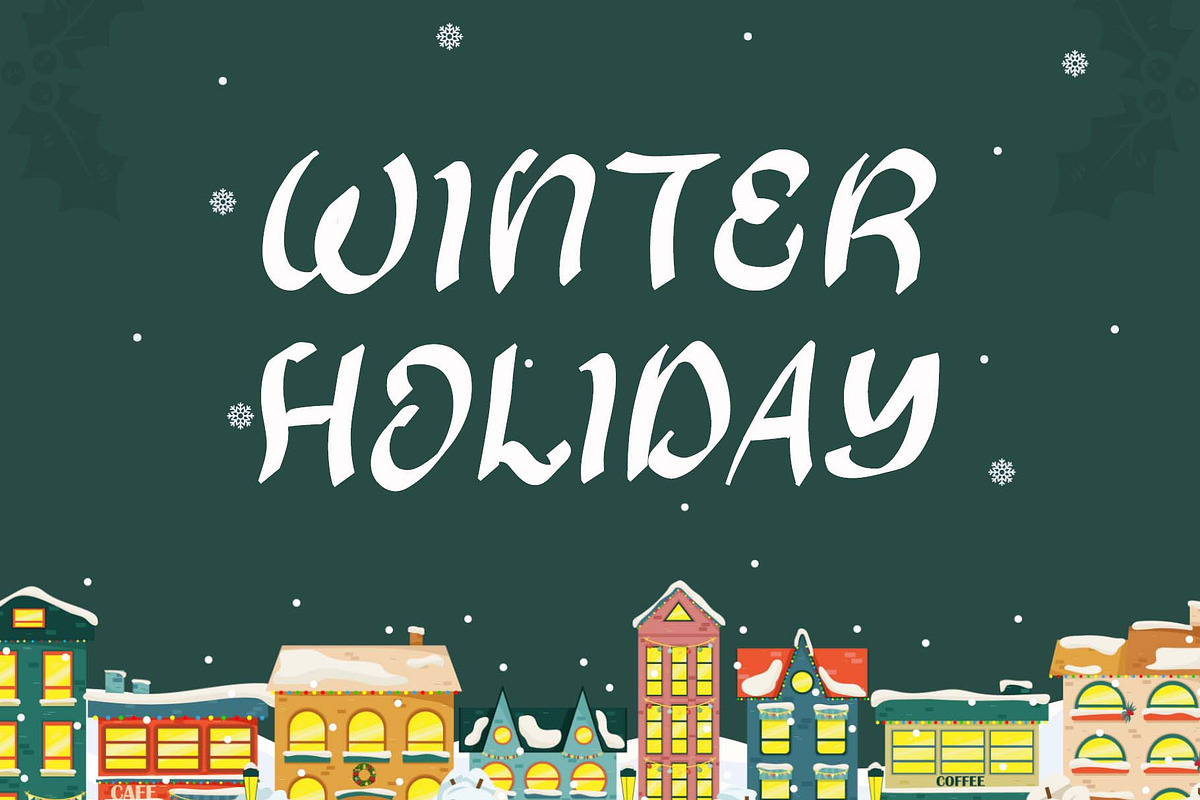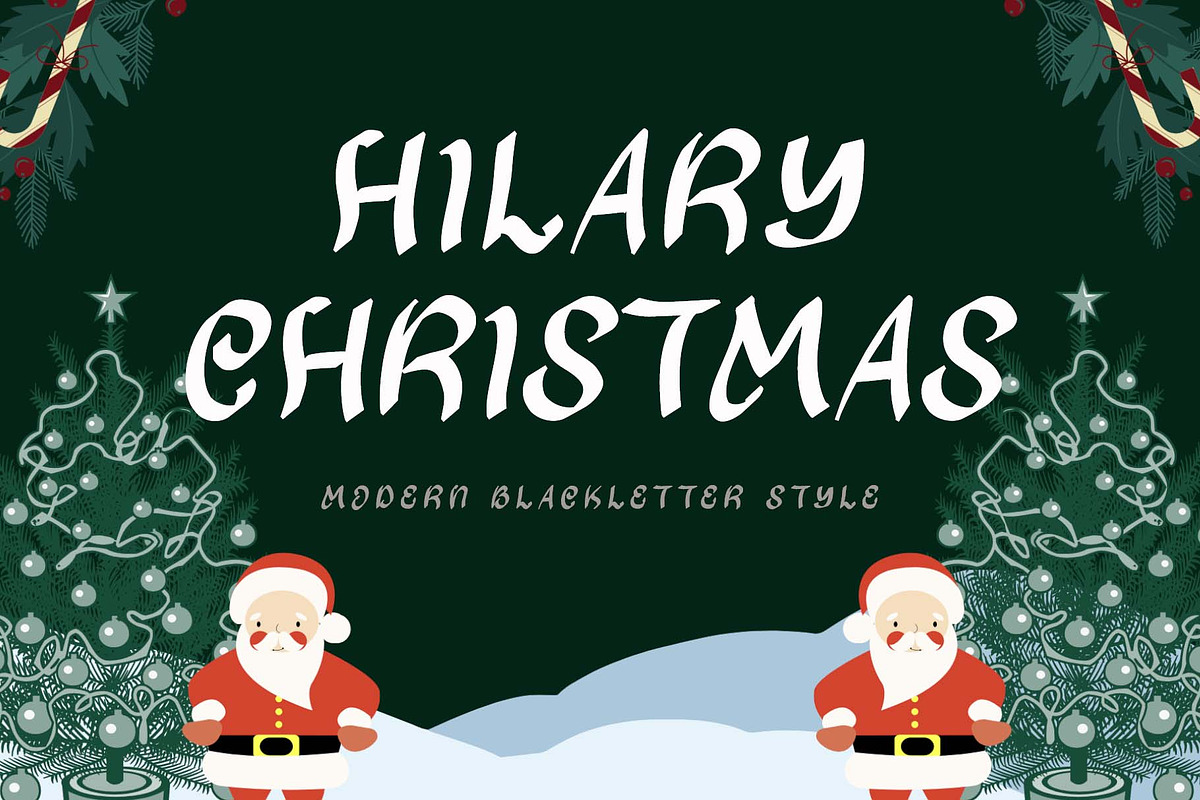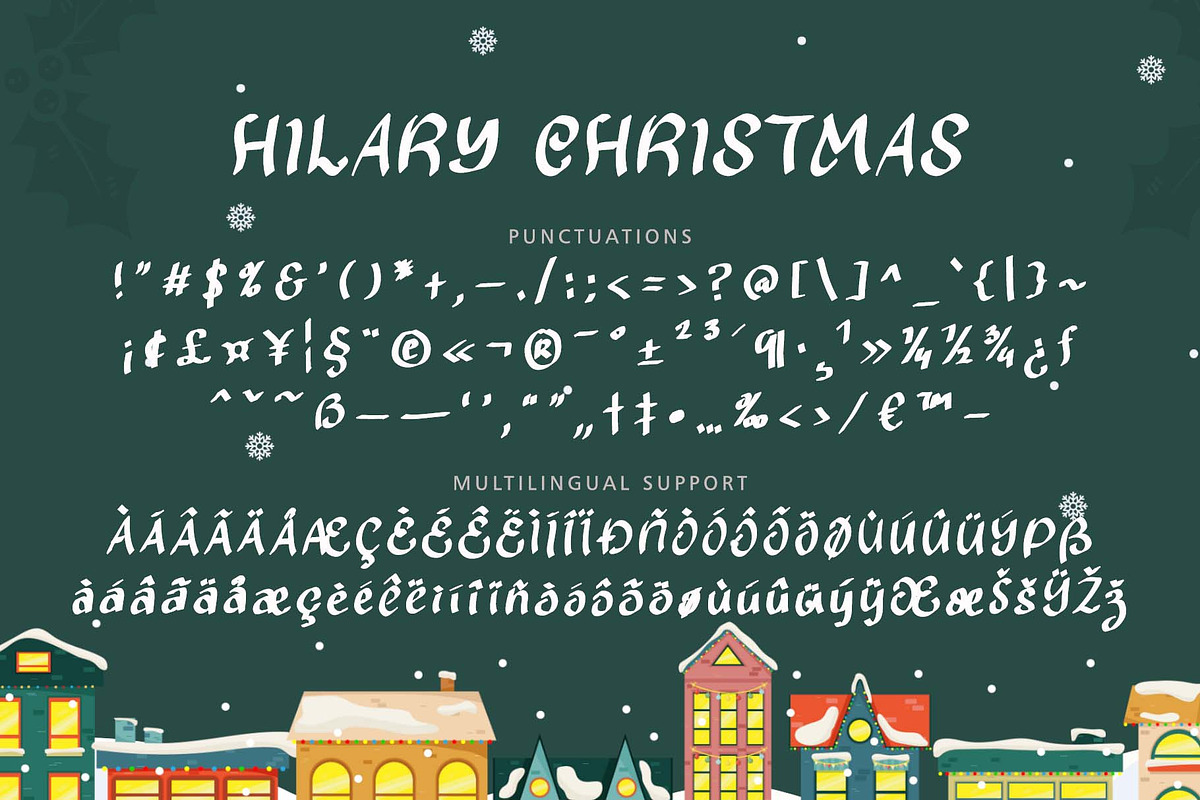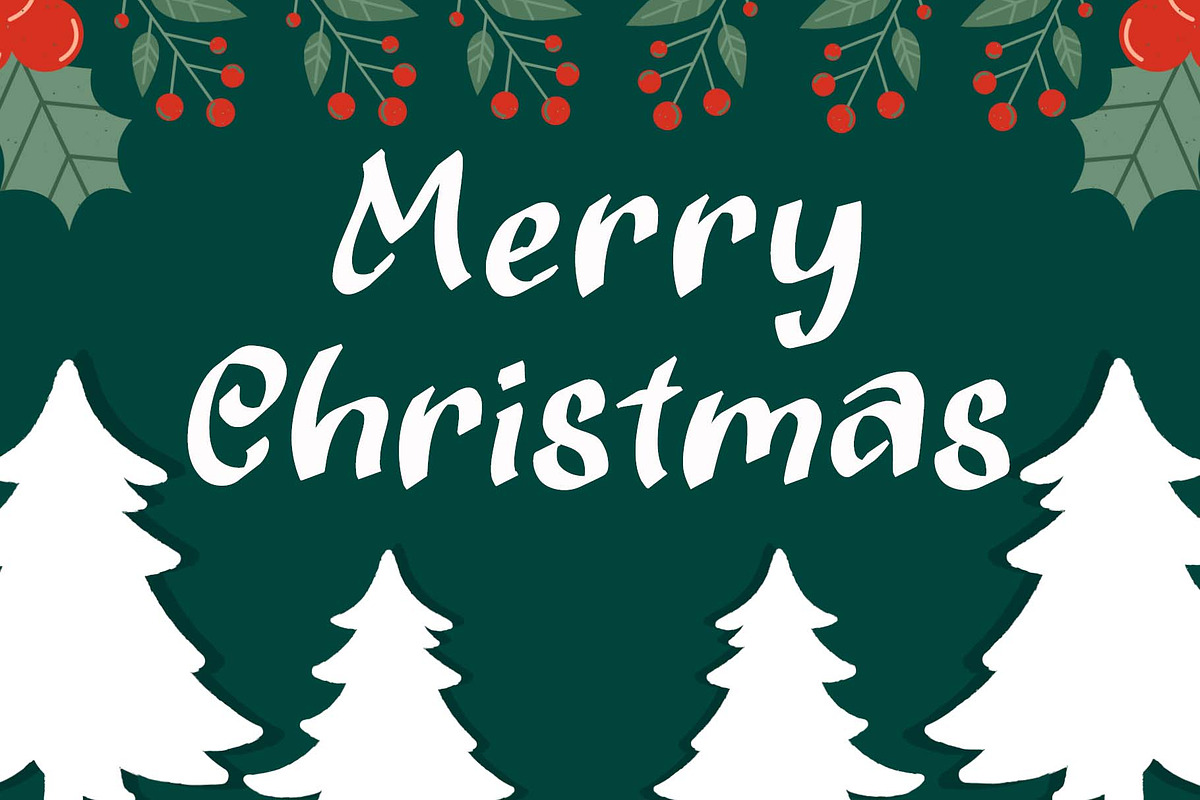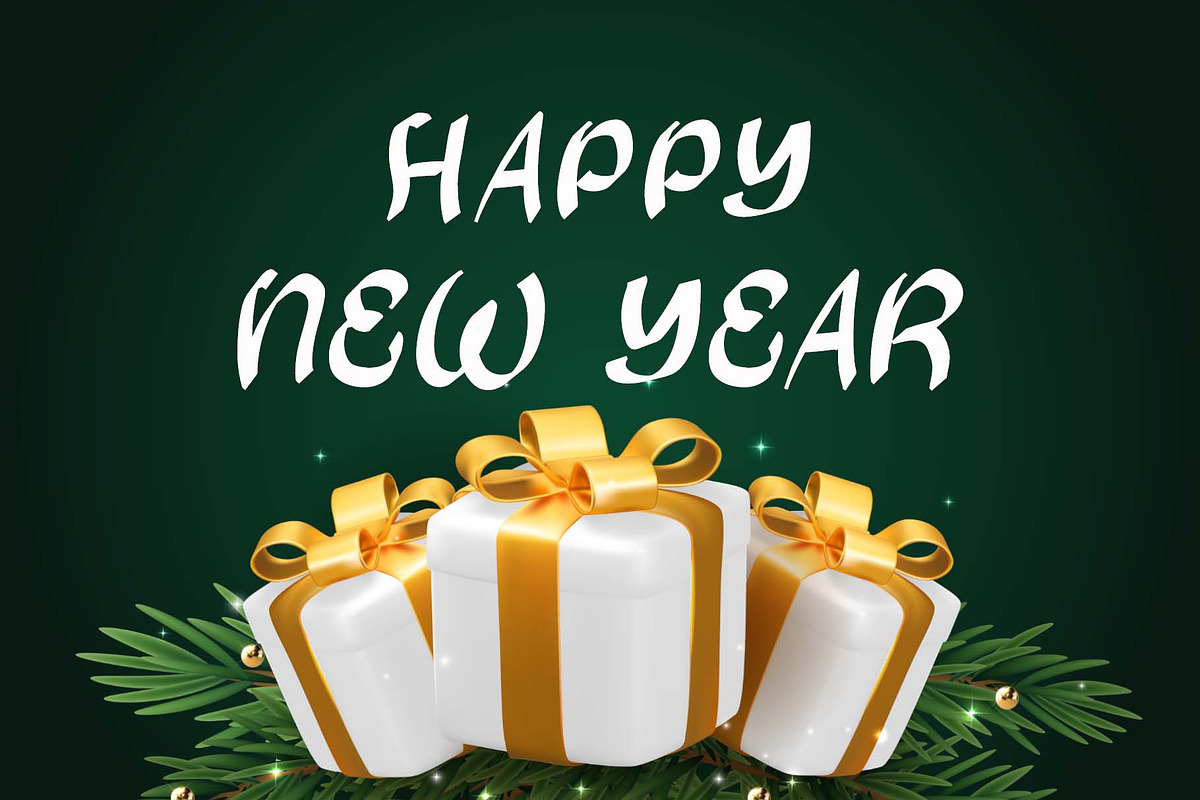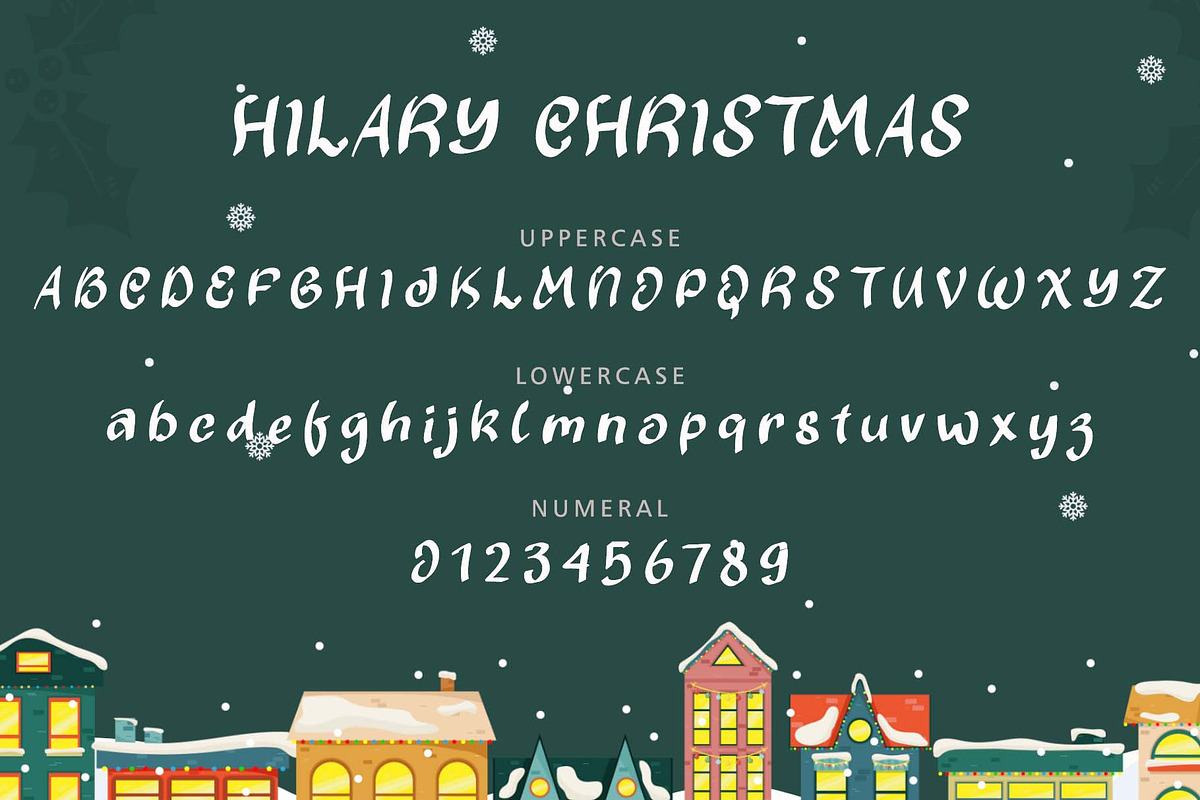
Hilary Christmas
"Hilary Christmas" is a unique and elegant blackletter font. It comes with capital letters, lowercase letters, numbers, punctuation, and multilingual support. It is perfect for use on Christmas, logos, banners, invitations, gifts, branding, posters, stickers, Valentine's, New Year and more.